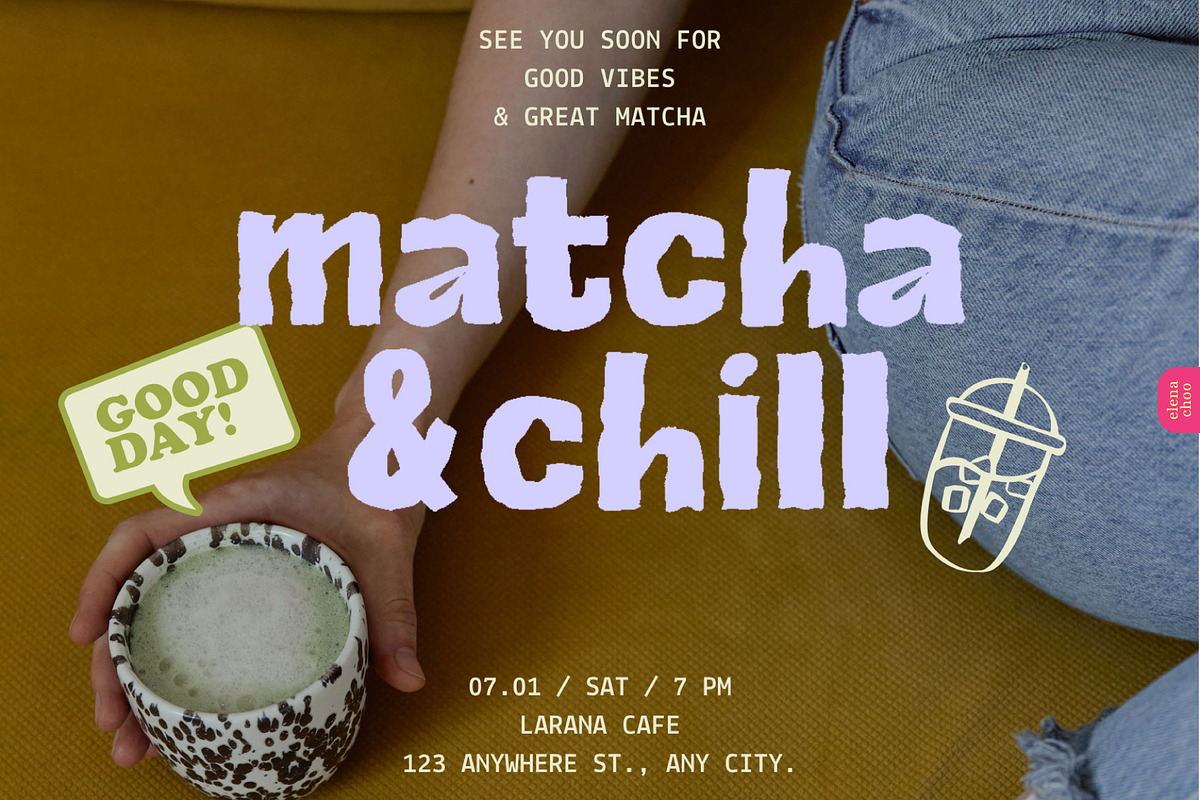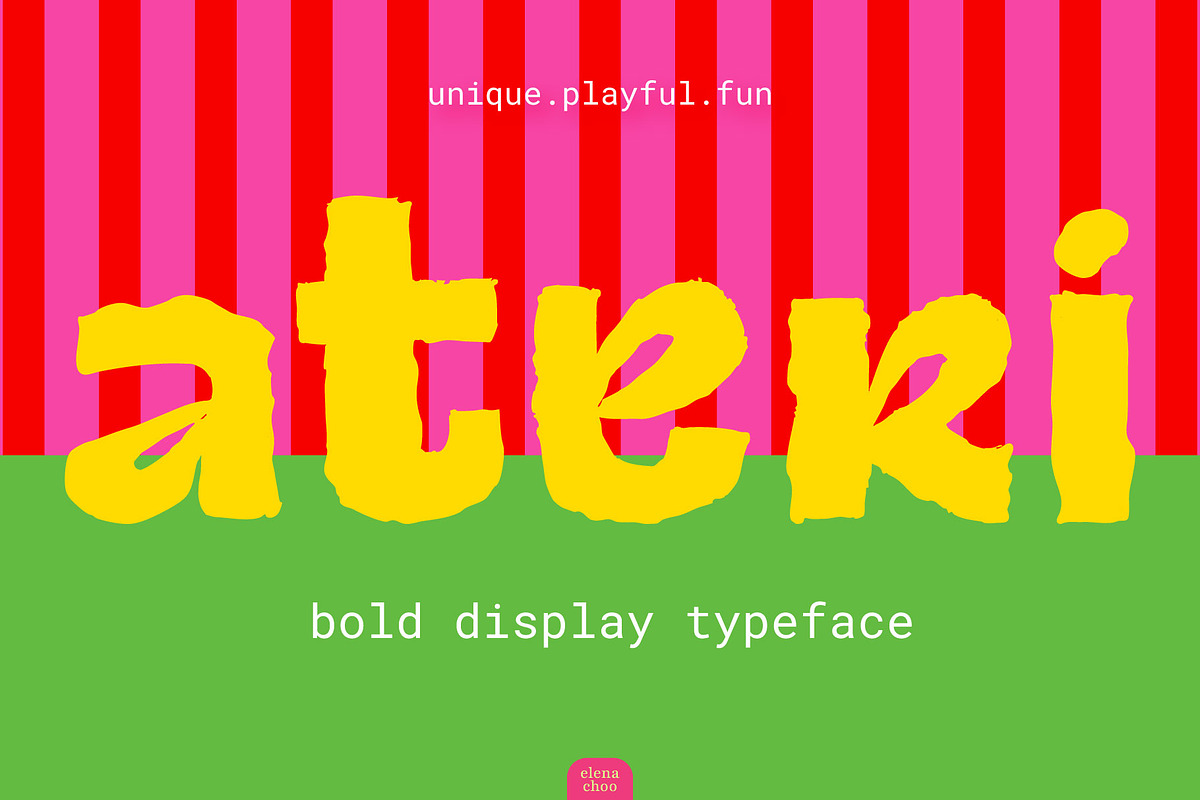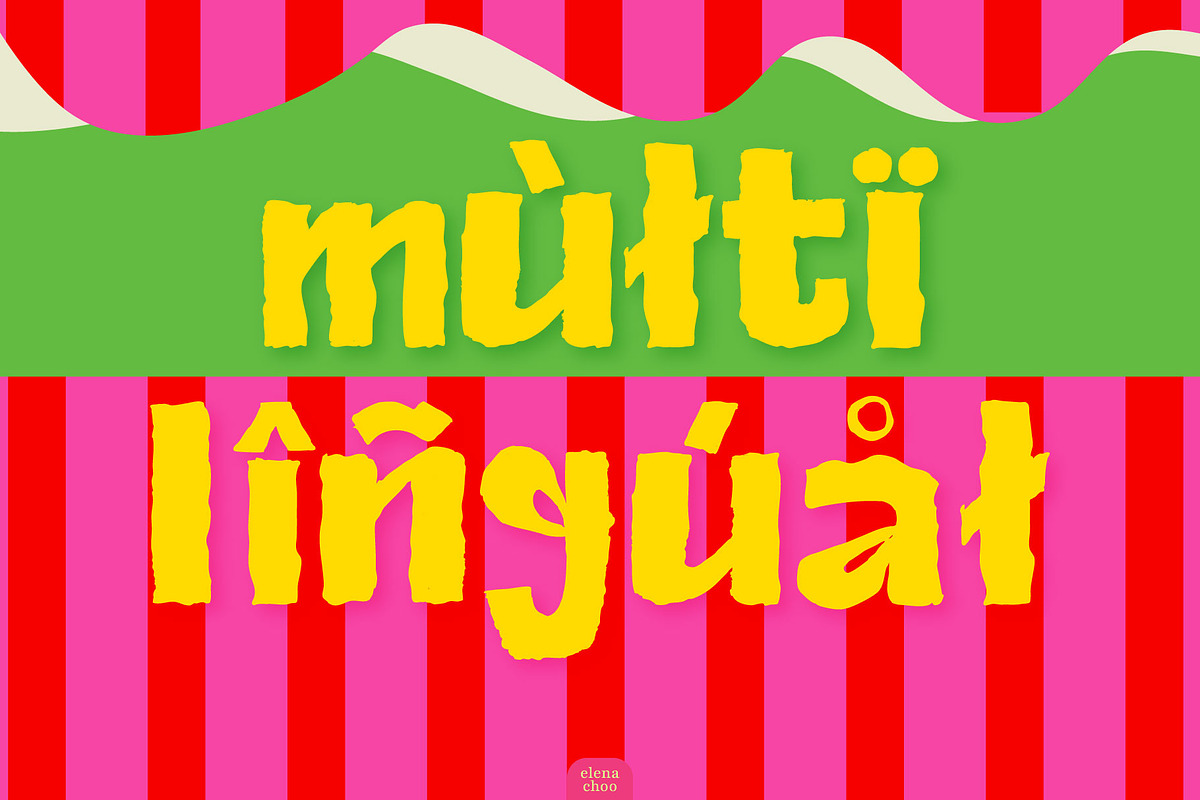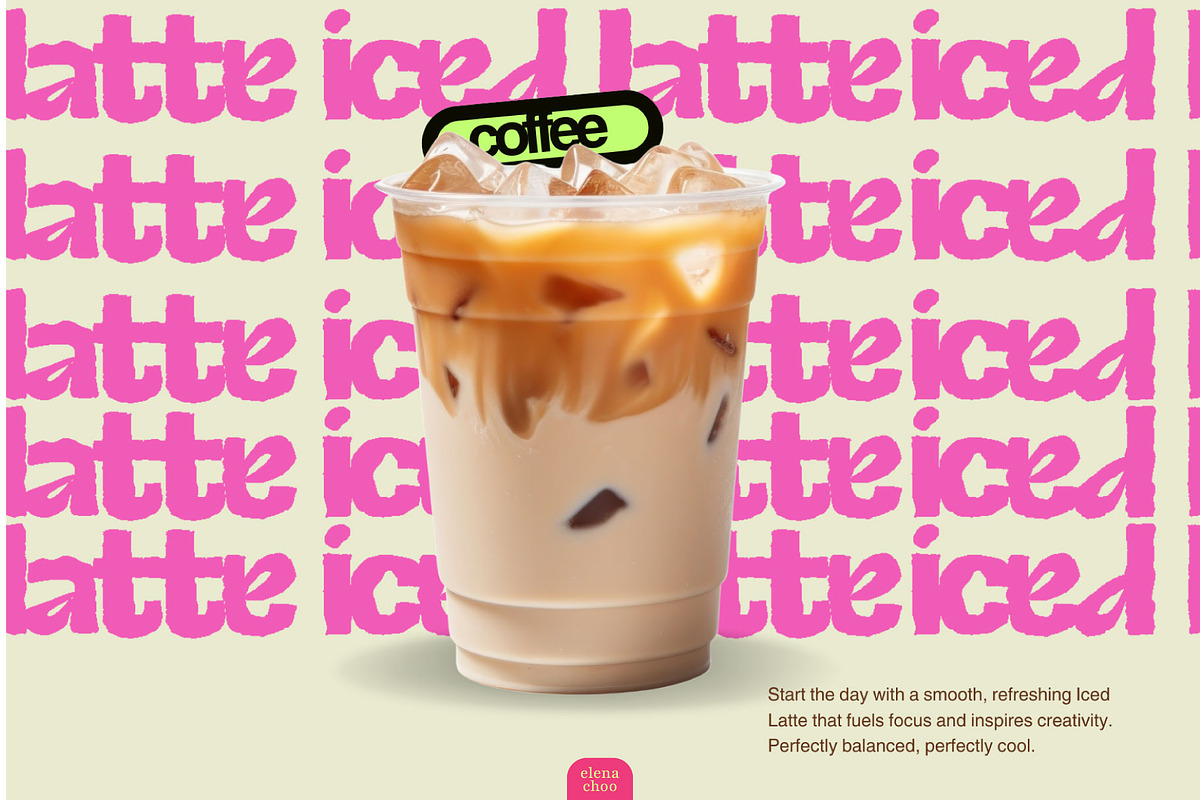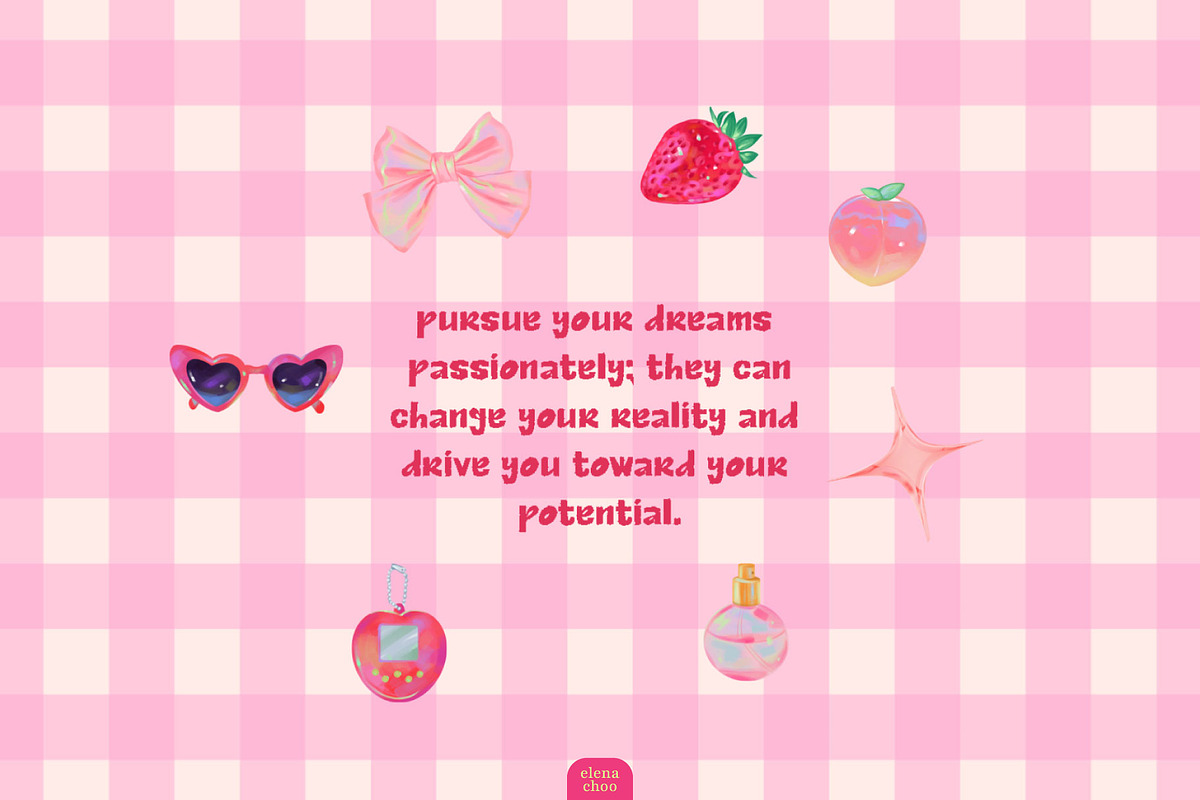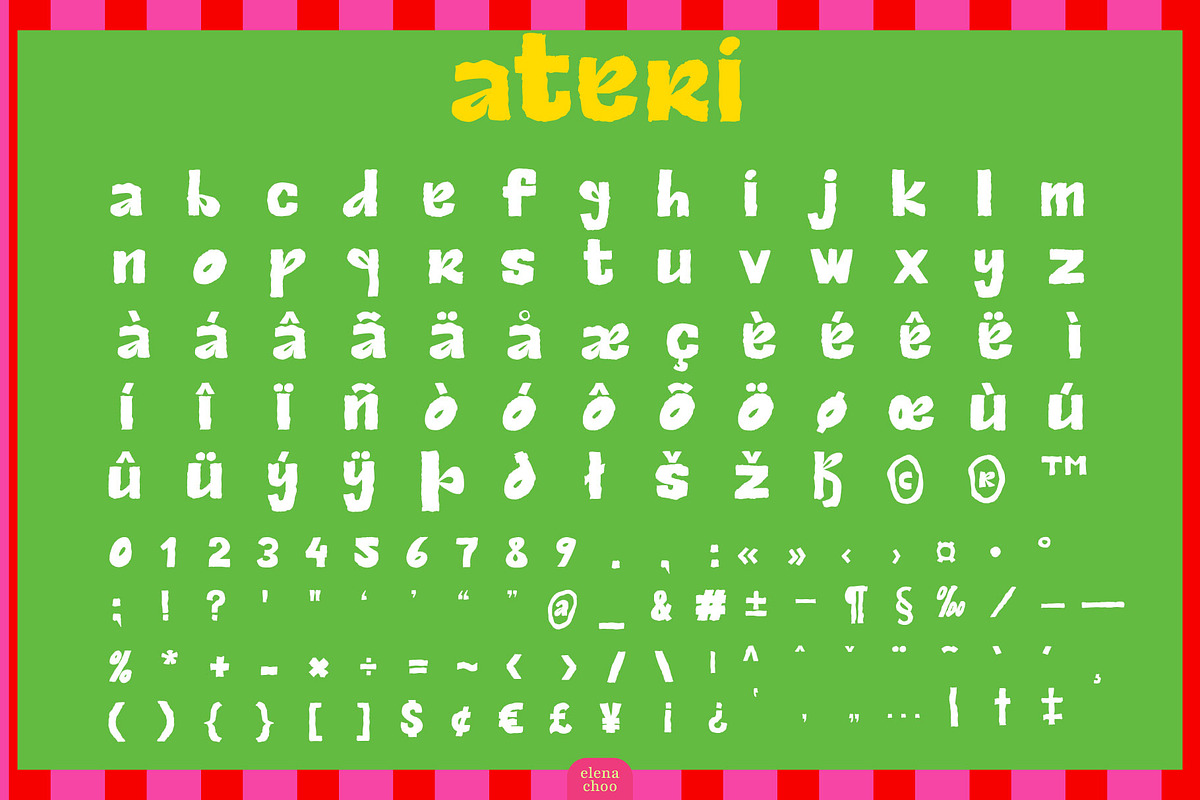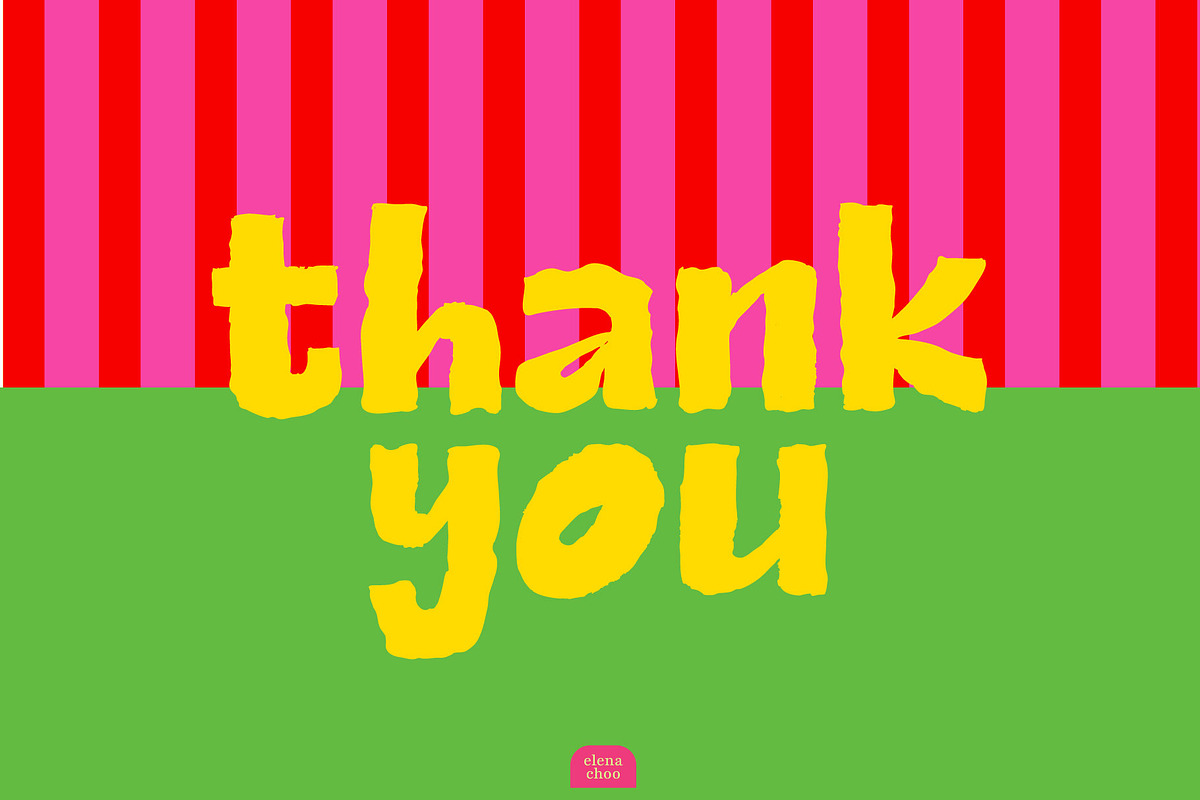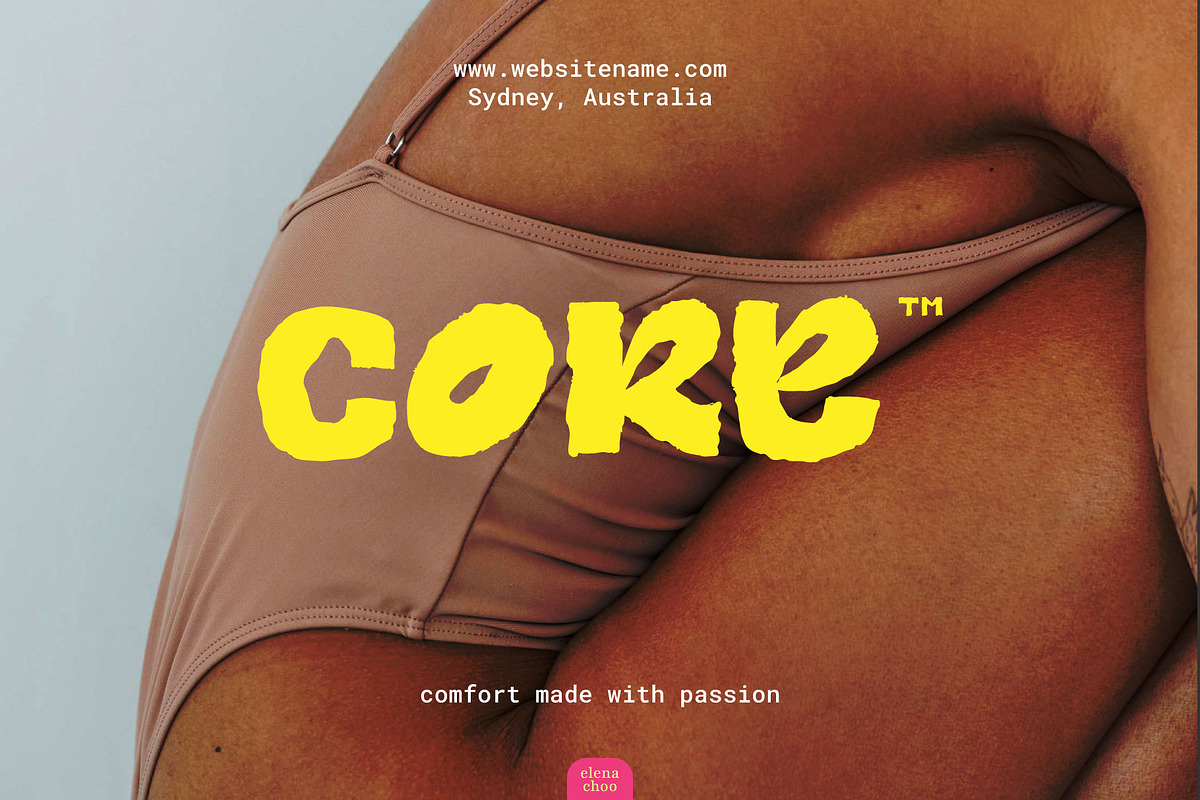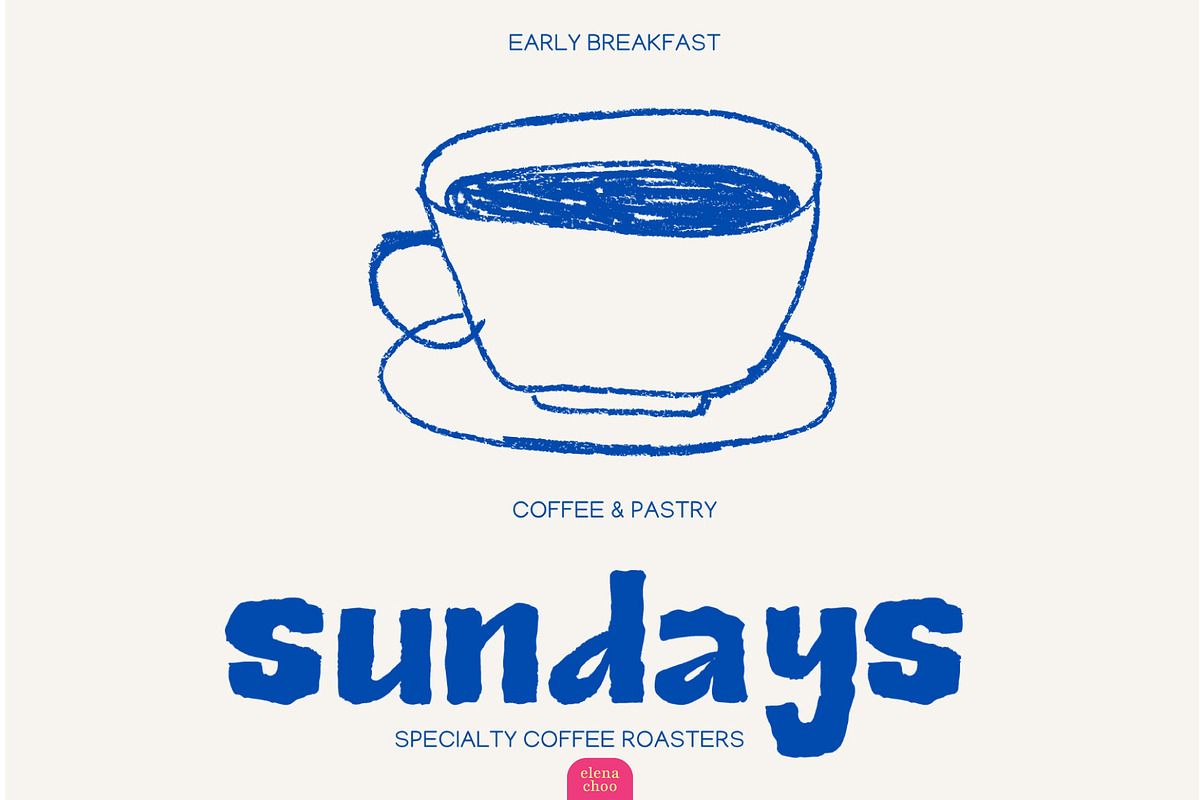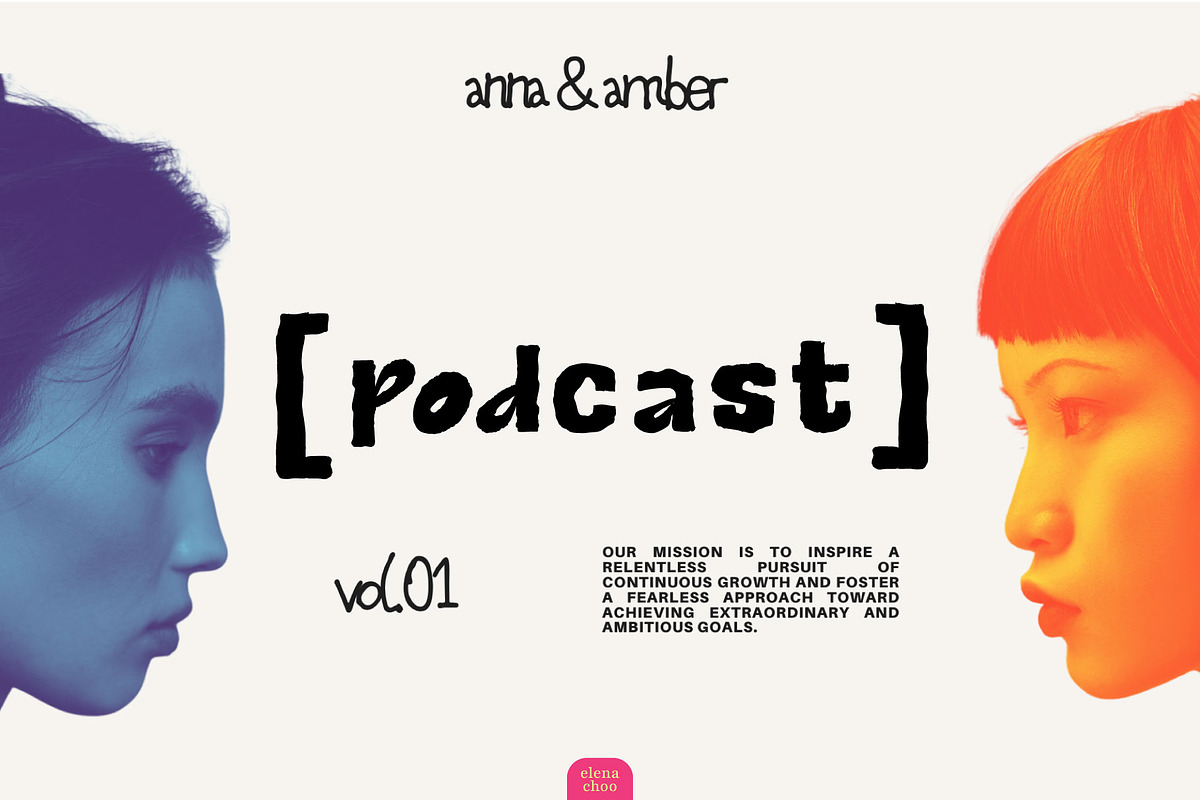
Ateri - Wiggly Bold San Serif
Ateri is a bold sans serif with intentionally wiggly, uneven edges designed for work that refuses to sit still.
Every letter carries hand-drawn character: wobbly baselines, irregular stroke widths, and playful imperfections. It's big, chunky, wonky, and brings warmth and personality to headlines, posters, packaging, and branding.
- lowercase Latin alphabet covering major Western European languages
- full set of numbers (0-9)
- essential punctuation and symbols
- Note: lowercase only - the chunky, wiggly aesthetic works best at display sizes for maximum impact
Will look great in:
- bold headlines and posters
- food and beverage branding
- playful brand identities and logo design
- packaging
- social media graphics and content creation
- editorial design
- merchandise and apparel graphics
- advertising and promotional materials